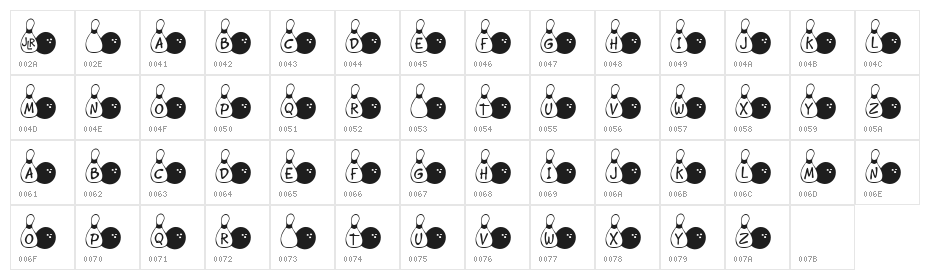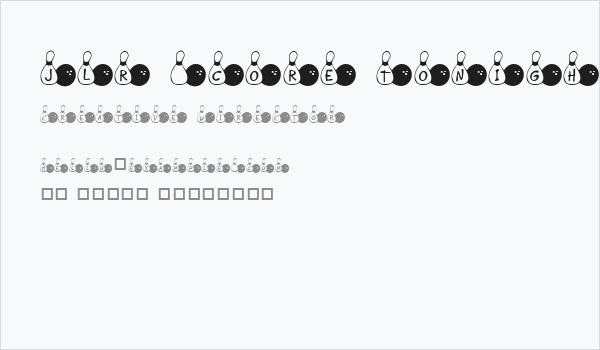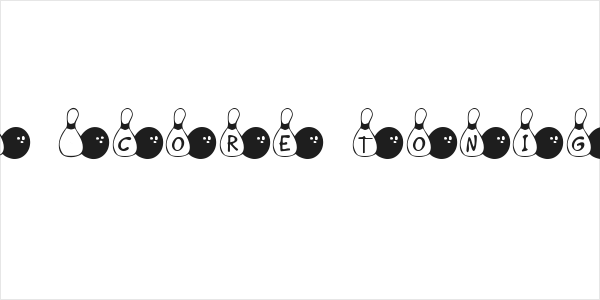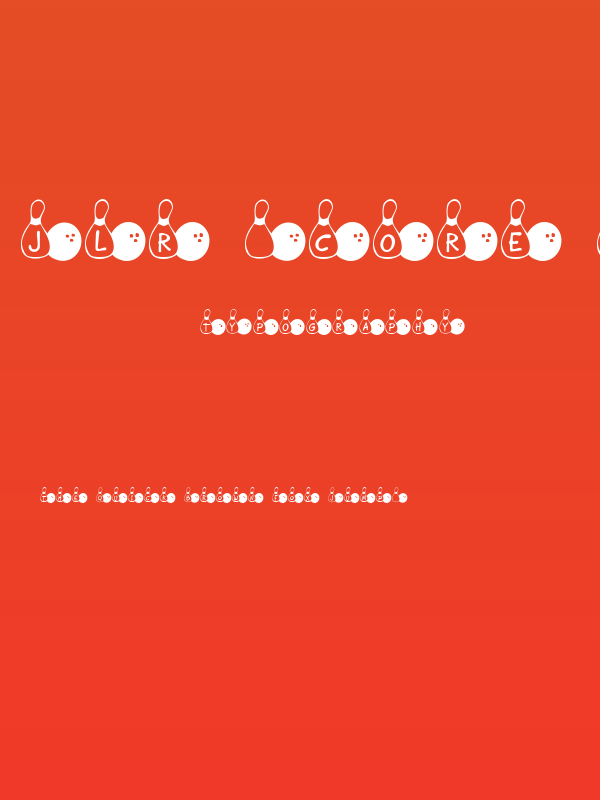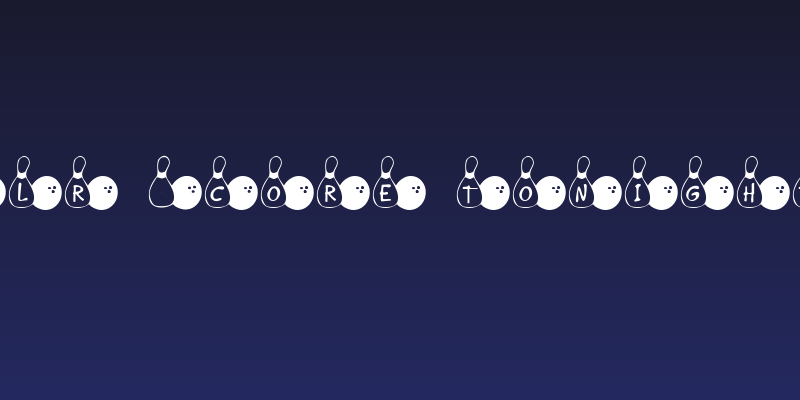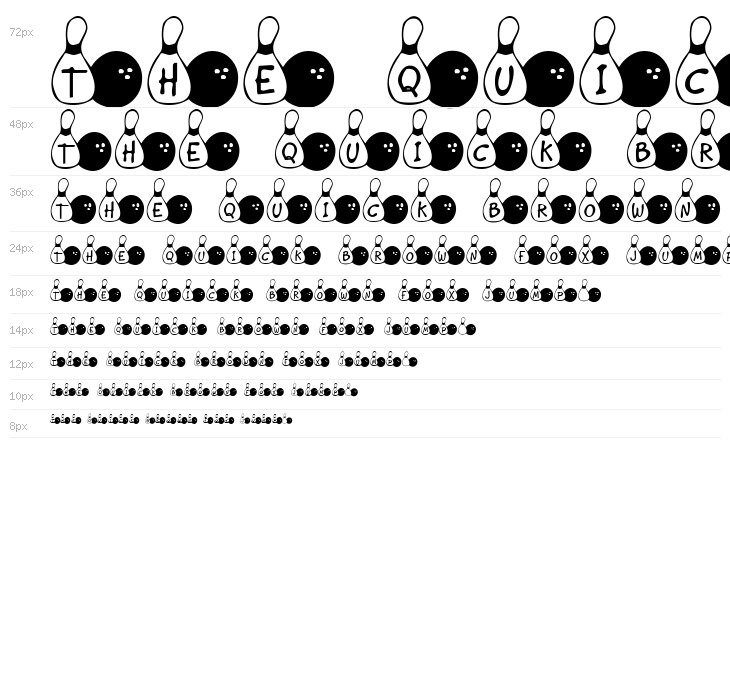
JLR Score Tonight Font
JLR Score Tonight Description
This playful and unique font features characters designed within the shape of bowling pins, with each letter and number encapsulated in a circular bowling ball. The design is bold and eye-catching, making it ideal for projects that require a fun and sporty aesthetic. The letters are clear and legible, despite the decorative elements, ensuring readability. The font is particularly suited for themes related to sports, games, or entertainment, where a lighthearted and engaging style is desired.
Overall StylePlayful
Proposed ProjectsIdeal for sports-themed posters, bowling alley signage, children's party invitations, and playful branding projects.